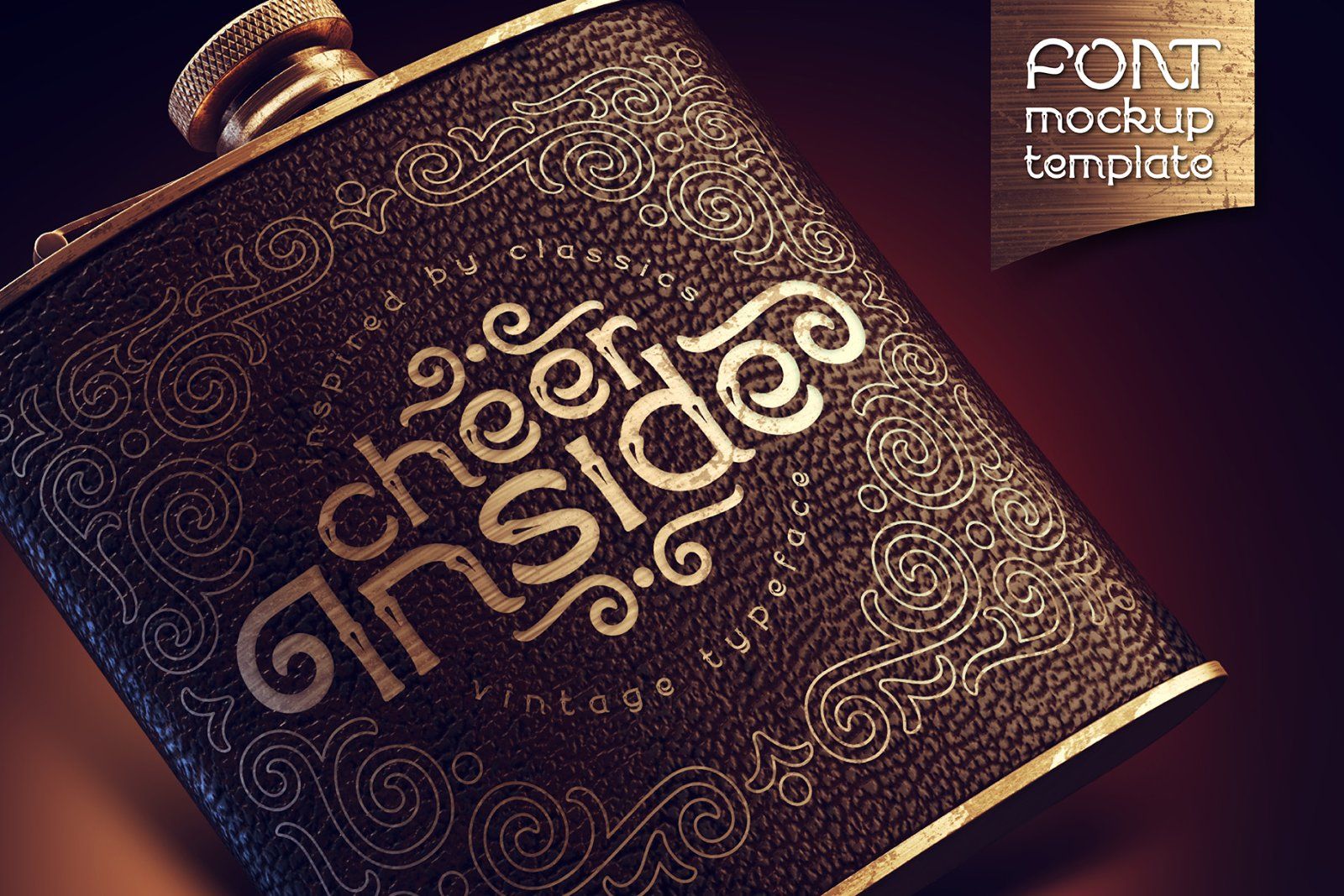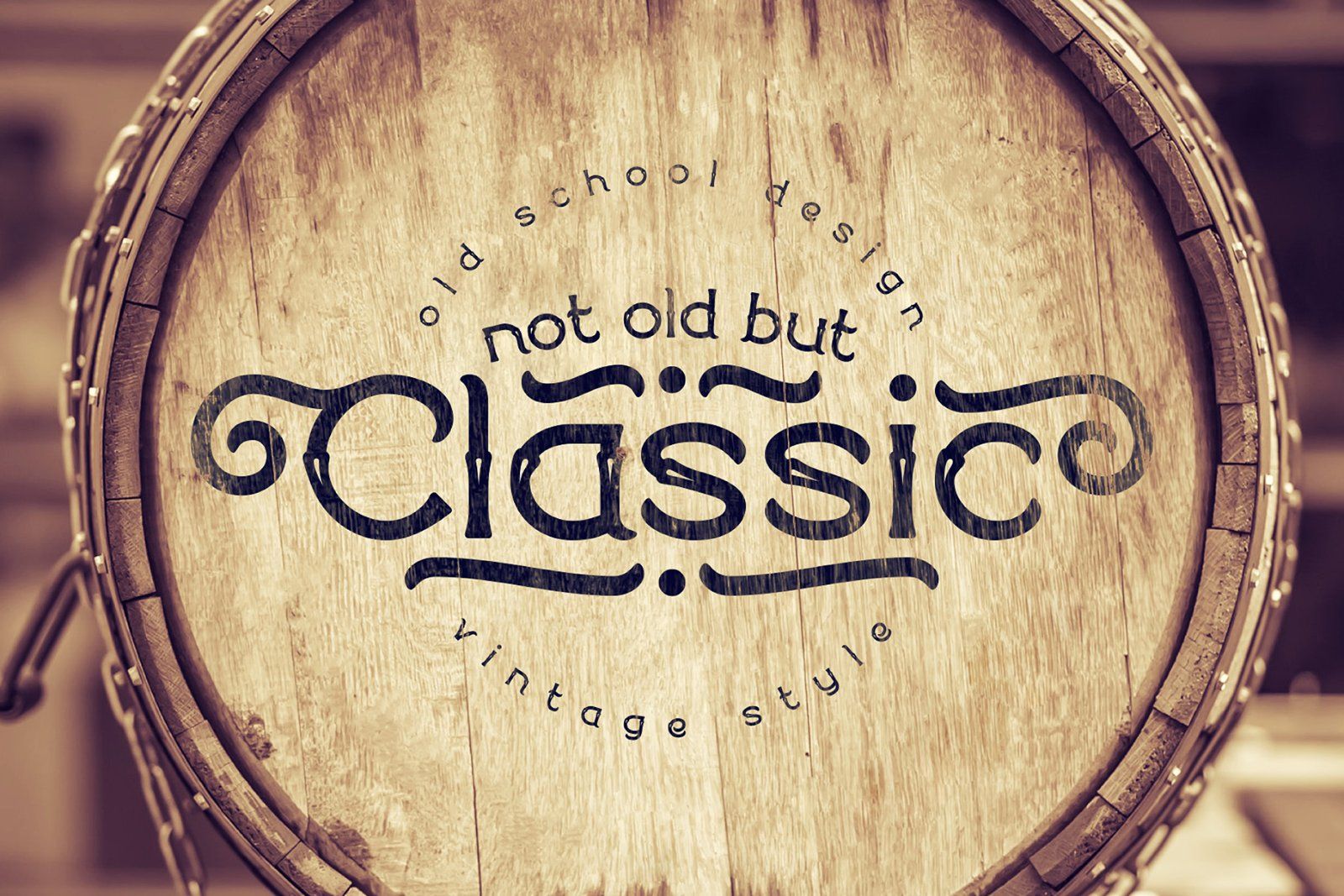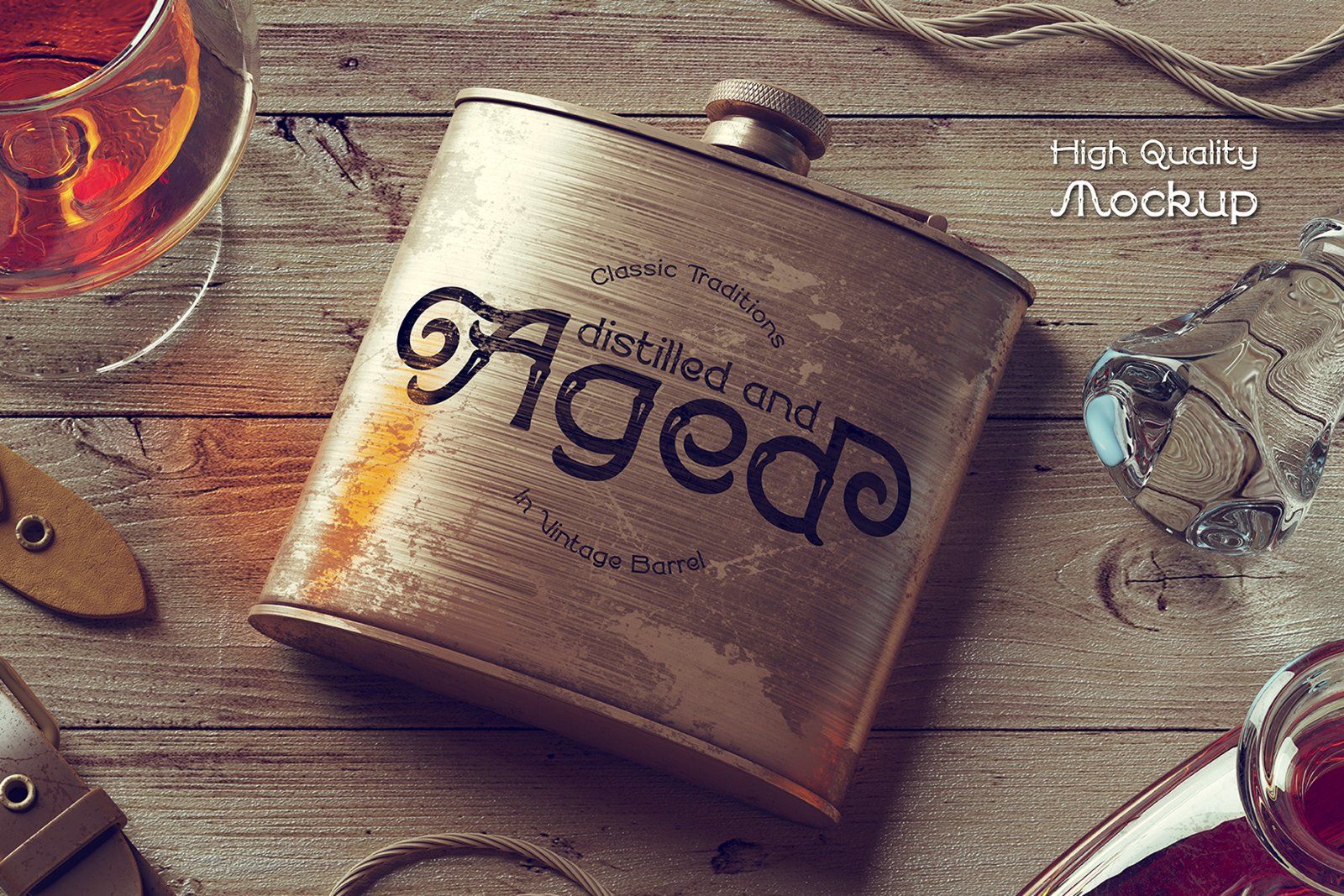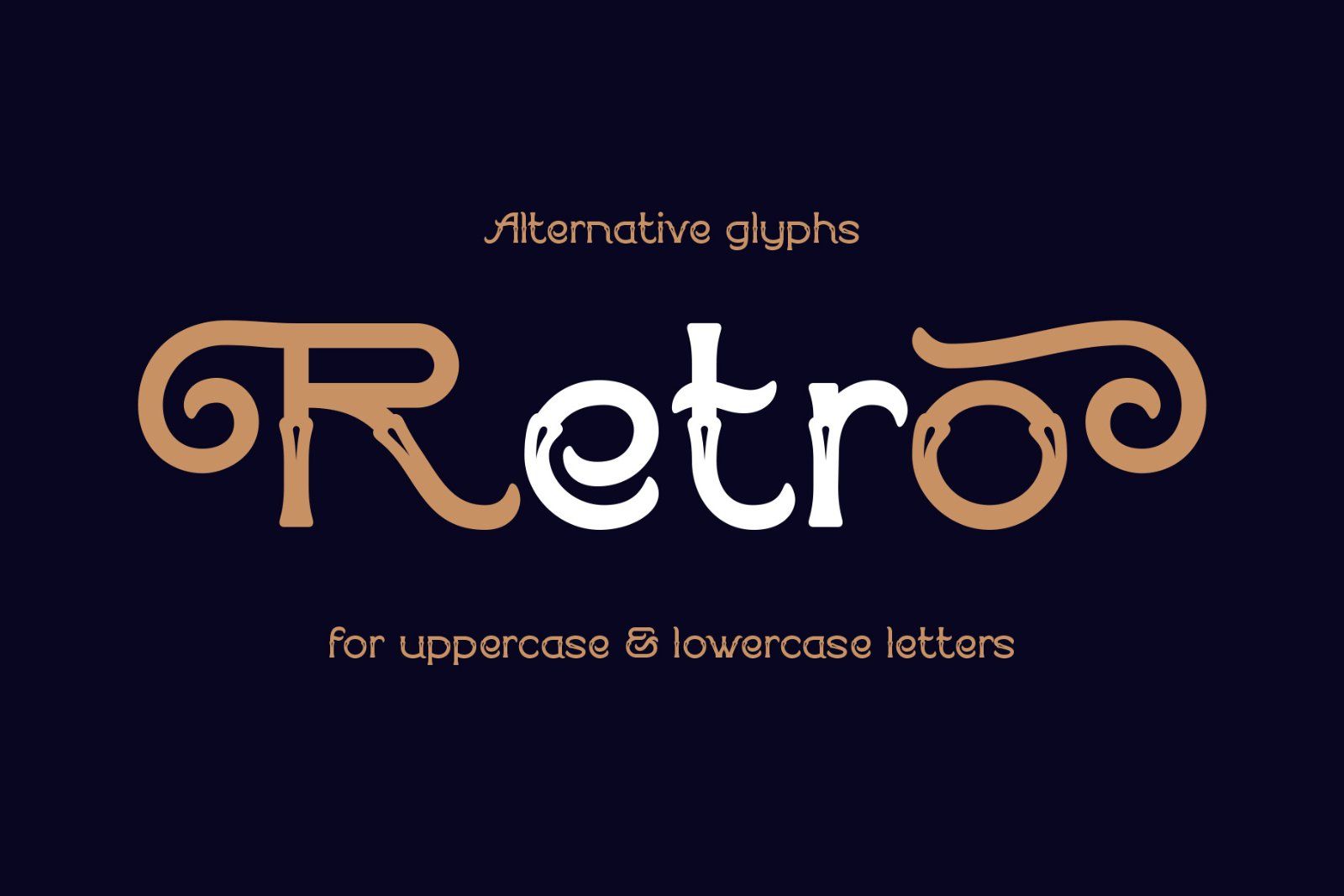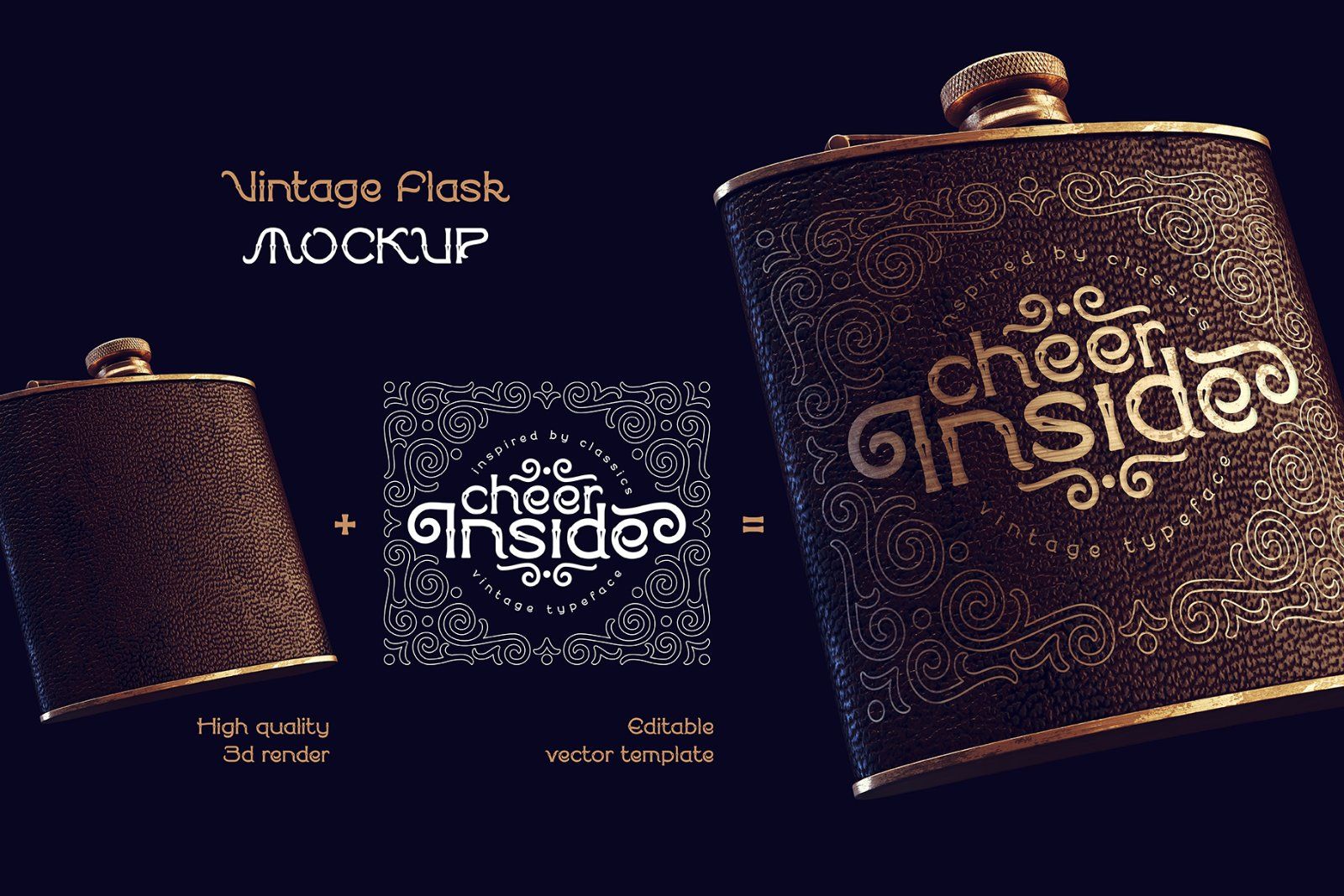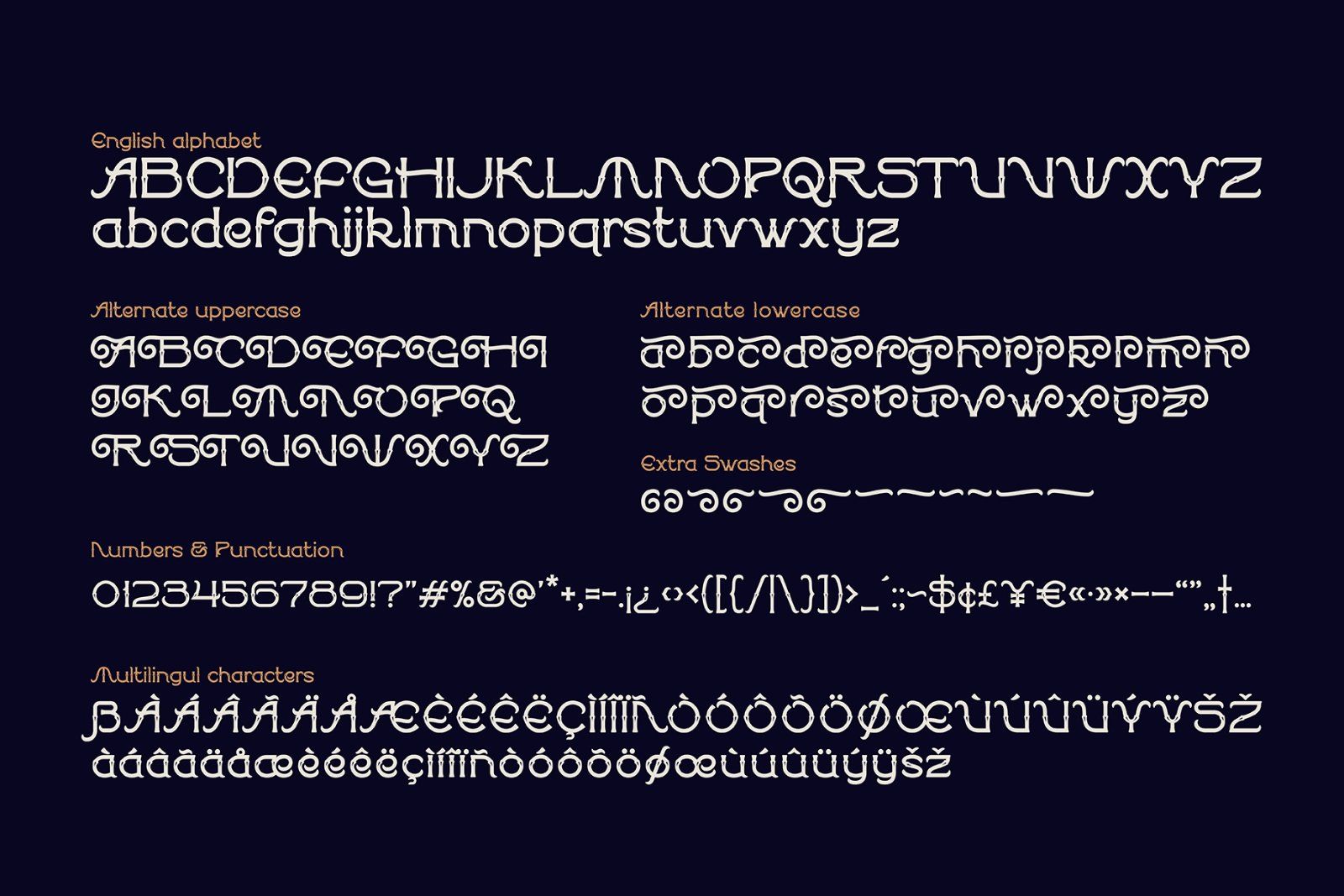
Introducing a vintage design set Cheer inside. First of all it's a font that has a classic style with additional decorative glyphs. Using OpenType stylistic alternates you can replace the first uppercase and the last lowercase letters. Also an additional swashes and few ligatures are available. Cheer inside has a west European support, check out the screenshot with all characters.
And finally you'll get a vector label template with beautiful decorative ornament. It's available in editable AI and expanded EPS file formats.